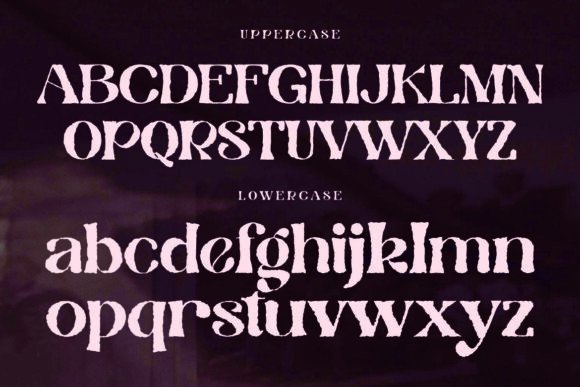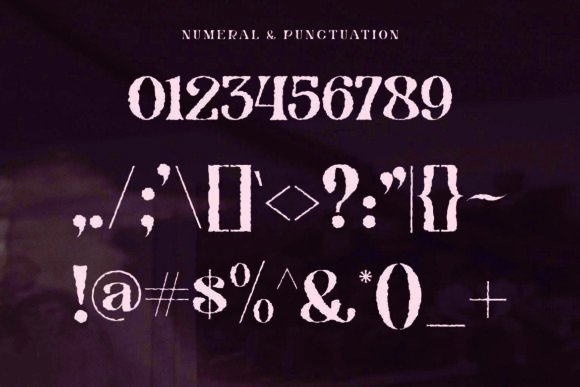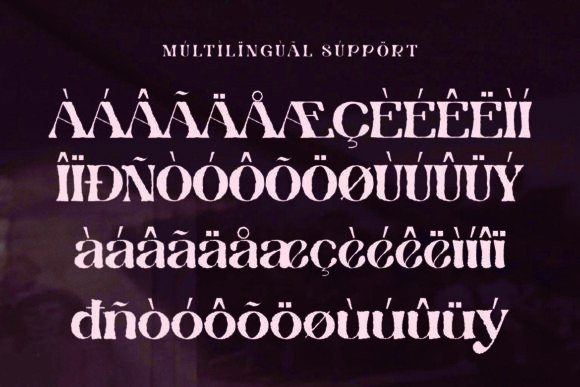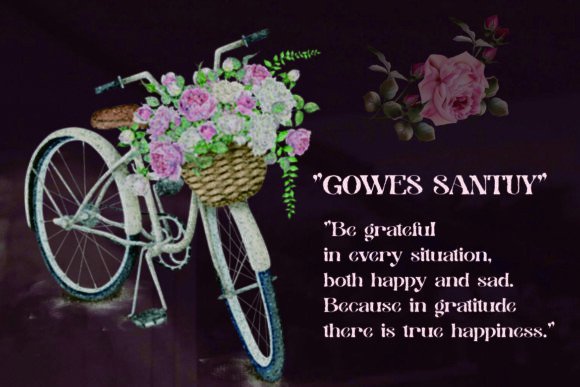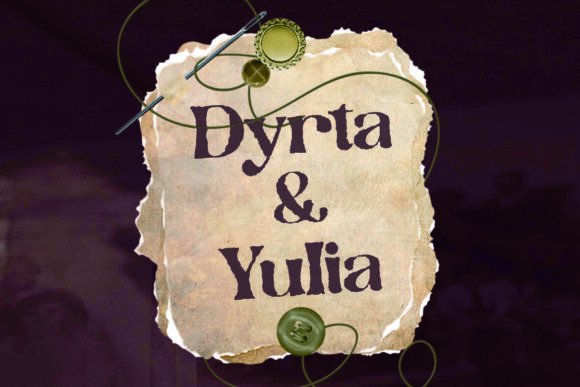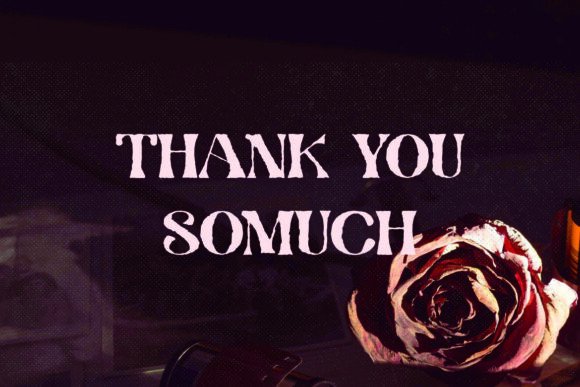
The Designer’s Delight: Uncovering the Power of Djadule Font
I’ll never forget the time I was working on a logo design project for a new esport team. The client wanted a bold, eye-catching font that would stand out in a crowded industry. I spent hours scouring the internet for the perfect font, but nothing seemed quite right. That was until I stumbled upon Djadule Font. ✨
This bold and authentic serif font has been a game-changer for my design projects, and I’m excited to share its awesomeness with you. In this article, we’ll dive into the world of Djadule Font, exploring its features, uses, and alternatives.
An Honest Review of Djadule Font
- ✅ Bold and Authentic: Djadule Font has a unique, rugged feel that’s perfect for making a statement.
- ✅ Versatile: This font is suitable for a wide range of projects, from logos and t-shirt printing to esport designs and more.
- ✅ Easy to Read: Despite its bold nature, Djadule Font remains surprisingly legible, even at smaller sizes.
While Djadule Font is an excellent choice, it’s not without its quirks. 🤔 For example:
- ⚠️ Limited Unicode Support: Djadule Font may not support certain special characters or languages.
- ⚠️ Not Suitable for Body Text: Due to its bold nature, Djadule Font is best used for headings or titles, rather than large blocks of body text.
- Experiment with OpenType features, such as Stylistic Alternates, to add some extra flair to your design.
If you like Djadule Font, you might also enjoy these similar fonts:
- Rockwell: A classic serif font with a similar bold and authentic feel.
- Playfair Display: An elegant, luxurious font perfect for headlines and titles.
- Montserrat: A modern sans-serif font with a similar geometric feel.
- Merriweather: A classic serif font with a similar traditional feel.
The Backstory of Djadule Font
Djadule Font was designed by a team of creatives who wanted to create a bold, eye-catching font that would stand out in a crowded design landscape. Inspired by traditional serif fonts, they added a modern twist to create a unique and versatile typeface.
Q: What is Djadule Font?
A: Djadule Font is a bold and authentic serif font suitable for a wide range of design projects.
Q: Does Djadule Font support OpenType features?
A: Yes, Djadule Font supports OpenType features, including stylistic alternates and glyphs.